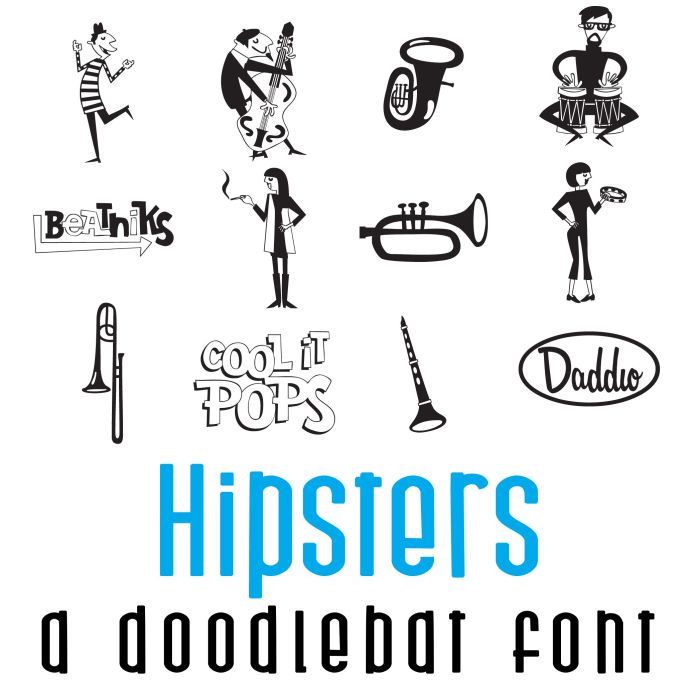
Hipsters Doodlebat Font
This doodlebat font features 26 hipster friends perfect for cards, crafts, gifts, decor, scrapbook pages, planner stickers, and more!